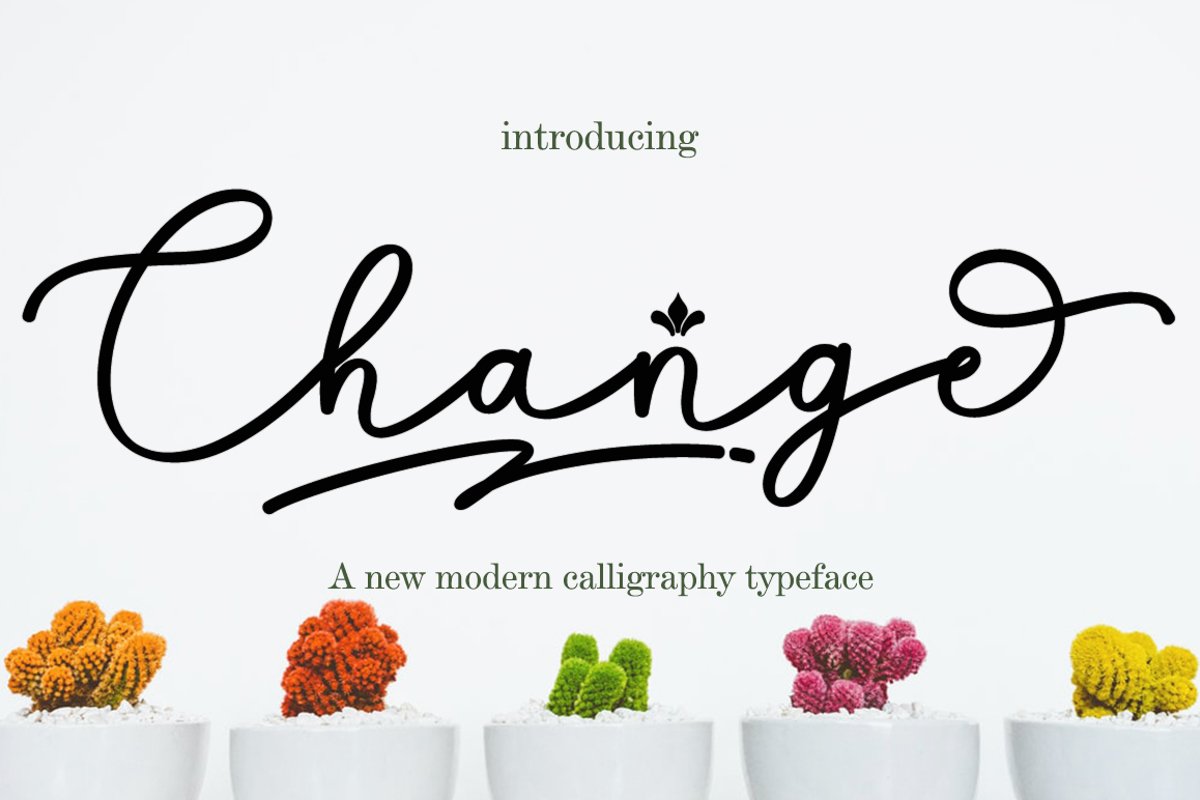
Change
Change Modern Calligraphy.
This font was designed by handwriting, and it has a modern and unique forms of calligraphy, the writing style is very natural.
The Features of this fonts is;
* Stylistic Alternates
* Standart ligatures
* Ornament sets
* Contextual Alternates
* Stylistic sets